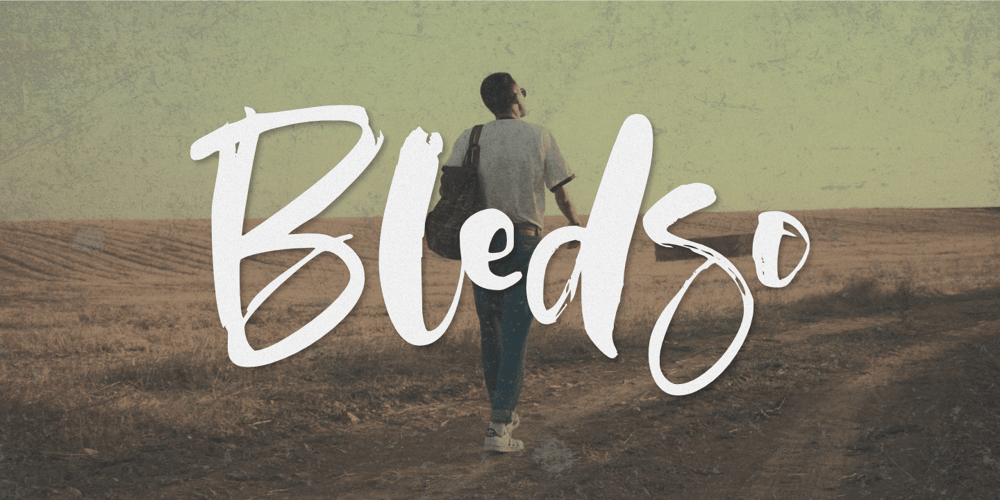
Bledso Font Family was designed by Aldy Sidik, Nurul Hidayani and published by Olivetype. Bledso contains 1 styles and family package options. Bledso is an authentic brush typeface. This all caps font is suitable for posters, magazines, apparels, movie headlines, packaging and more.So what’s included : Basic Latin A-Z & a-z Numbers, symbols, and punctuations Ligatures and swashes Accented Characters : ÀÁÂÃÄÅÆÇÈÉÊËÌÍÎÏÑÒÓÔÕÖØŒŠÙÚÛÜŸÝŽàáâãäåæçèéêëìíîïñòóôõöøœšùúûüýÿžß Thank you